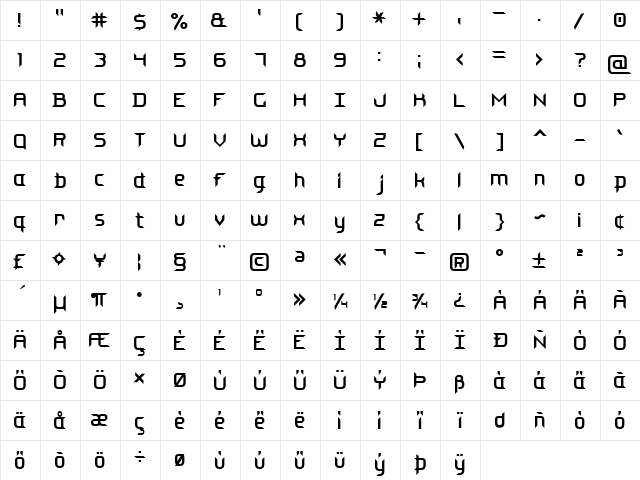
Steel Blade 7 Regular
Design Context for Steel Blade 7 Typeface
Steel Blade 7 takes a measured approach to typography — its balanced proportions and neutral character make it a reliable workhorse for both digital and print work.